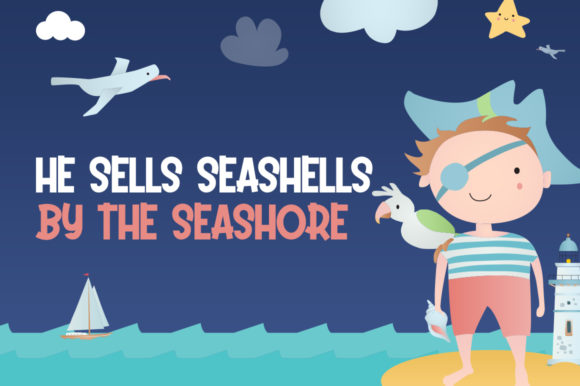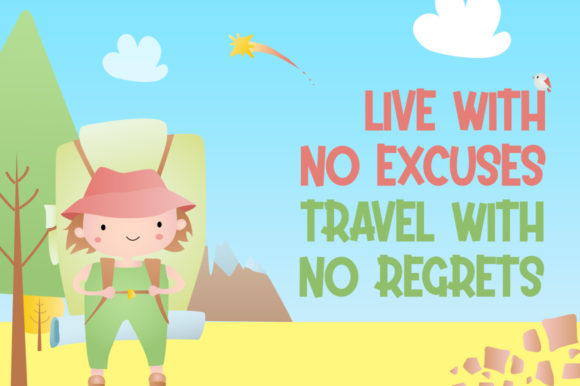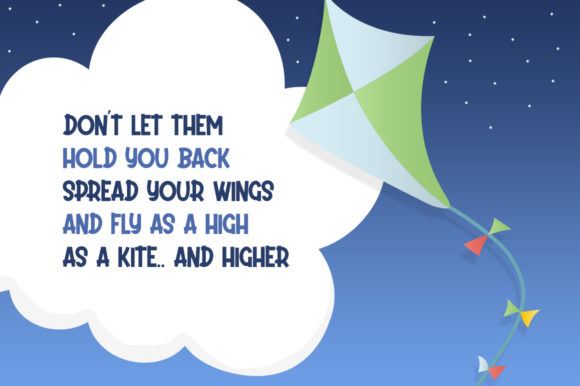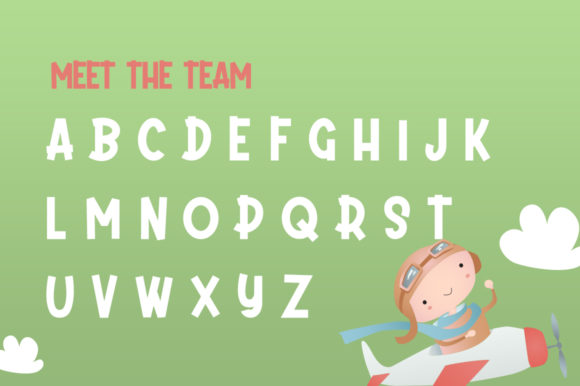
Discover the Whimsical World of Daydream Font
Are you ready to embark on a fantastical journey with a font that’s as adventurous as it is charming? Look no further than Daydream Font, a wonderful new addition to the world of typography that’s perfect for little explorers and creative enthusiasts alike. In this article, we’ll dive into the delightful features of Daydream Font, its versatility, and how it can elevate your designs and crafts.
The Essence of Daydream Font
Daydream Font is a beautifully crafted typeface that embodies the spirit of imagination and adventure. Its whimsical design is reminiscent of childhood fantasies, making it an ideal choice for projects that require a touch of playfulness and curiosity. Whether you’re working on a kids’ book, a craft project, or a design that needs a dash of creativity, Daydream Font is sure to captivate your audience.
Perfect for Little Explorers
Daydream Font is specifically designed with little explorers in mind. Its clear, rounded letters and friendly demeanor make it easy to read and understand, even for young children. The font’s adventurous feel also encourages kids to explore their imagination and creativity, making it an excellent choice for:
• Kids’ books and educational materials
• Craft projects, such as handmade cards and DIY toys
• Children’s party invitations and decorations
• Educational websites and apps
One of the standout features of Daydream Font is its versatility. It works beautifully on its own, but it also pairs well with other fonts, making it perfect for use in quotes, posters, and other design projects. Whether you’re looking to create a bold statement or a subtle accent, Daydream Font adapts seamlessly to different design styles and contexts.
With Daydream Font, the creative possibilities are endless. Here are a few ideas to get you started:
• Create a custom kids’ book with illustrations and typography that transport young readers to a world of wonder.
• Design a set of inspirational quotes with Daydream Font and a complementary font to add a touch of whimsy to your social media feed.
• Develop a brand identity for a children’s product or service that incorporates Daydream Font for a playful and approachable feel.
• Craft a beautiful handmade journal or planner with Daydream Font as the primary typography.
Tips for Using Daydream Font
To get the most out of Daydream Font, here are a few tips to keep in mind:
• Experiment with font sizes and colors to create visual interest and hierarchy.
• Pair Daydream Font with other fonts that complement its playful and adventurous feel.
• Use Daydream Font consistently across your design or craft project to create a cohesive look.
• Don’t be afraid to add illustrations and graphics to enhance the overall aesthetic.